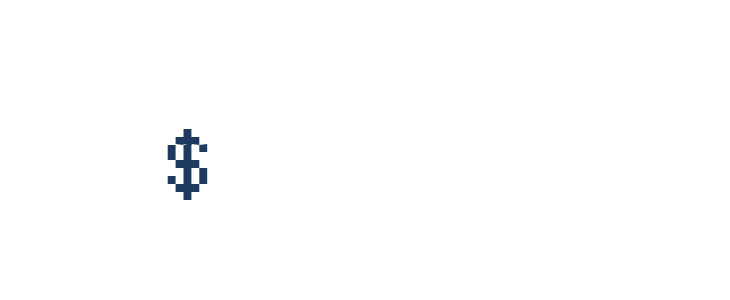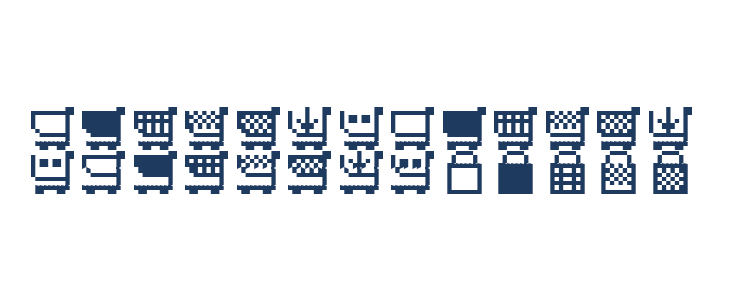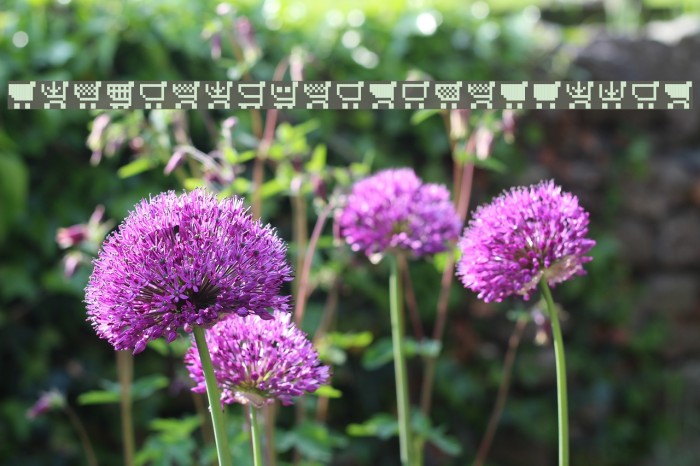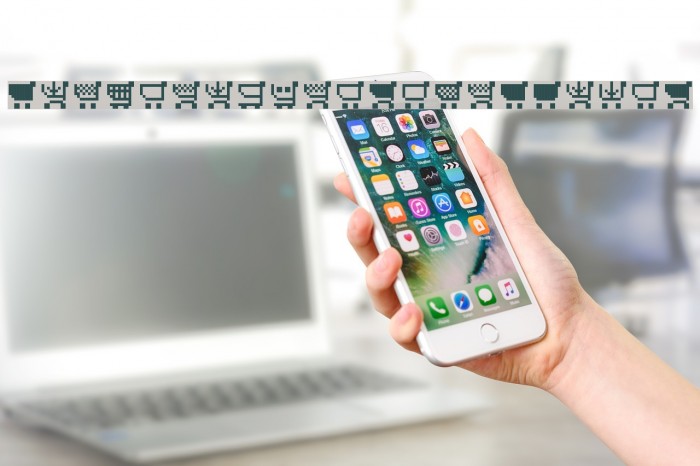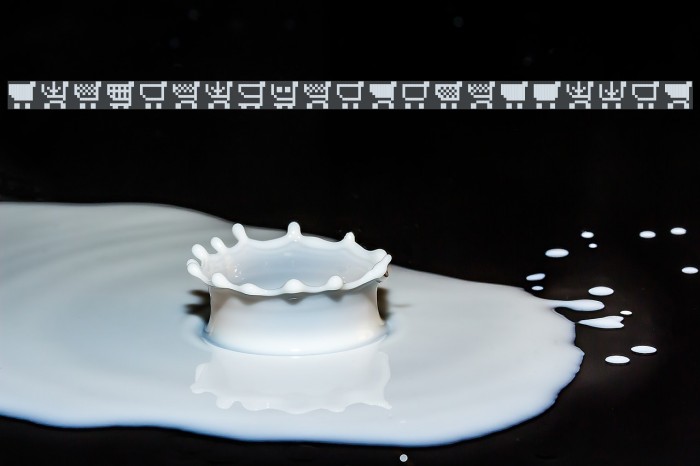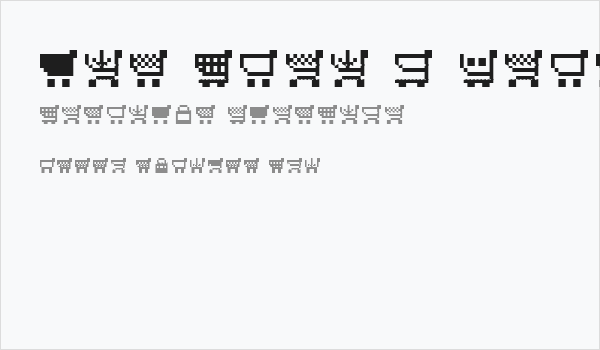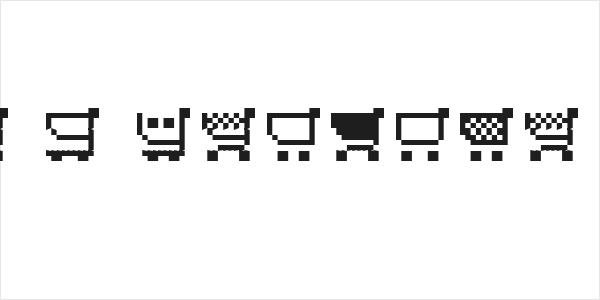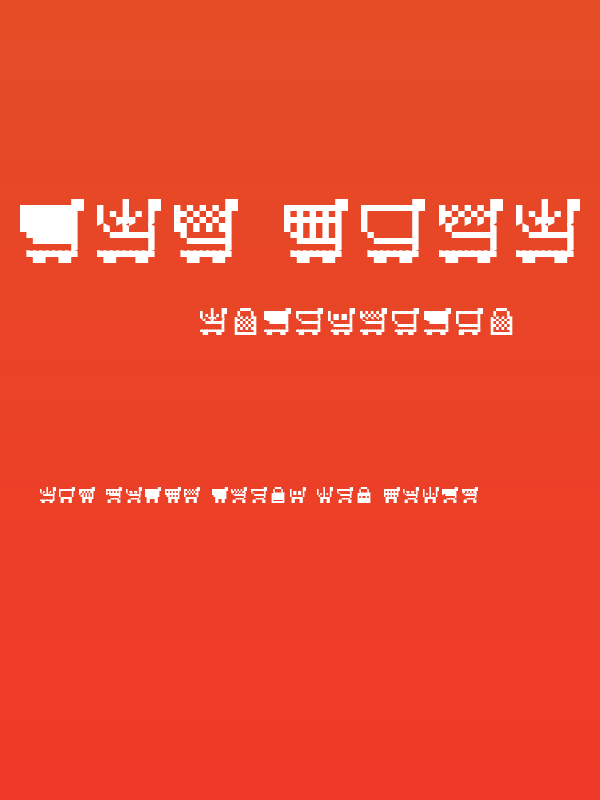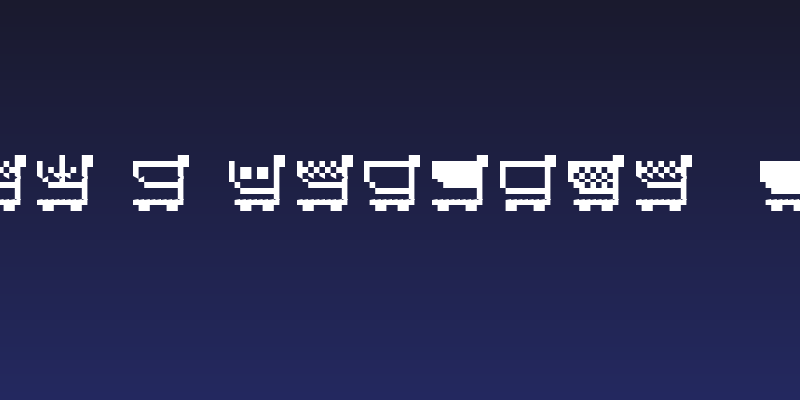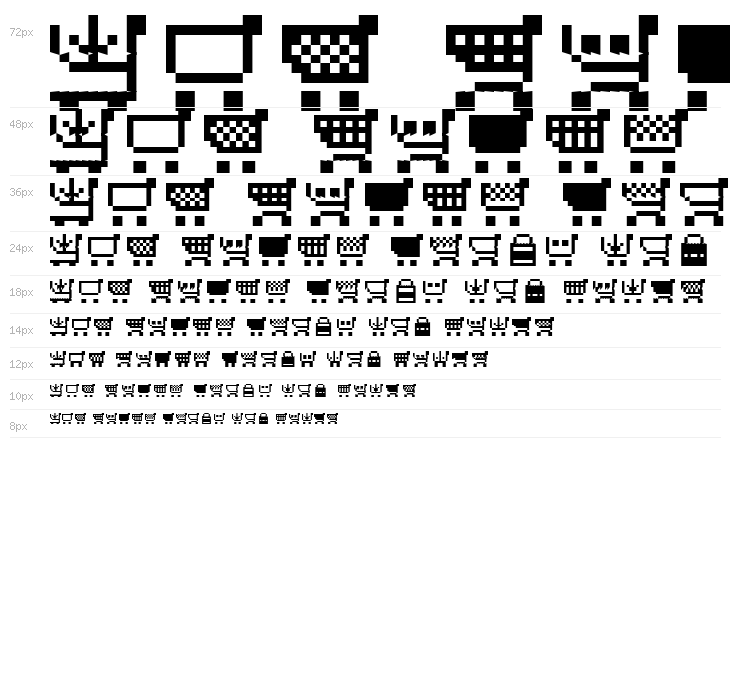
btd Cart-O-Grapher [bitmap] Font
btd Cart-O-Grapher [bitmap] Description
This bitmap font features a series of shopping cart and bag icons, each designed with a pixelated, retro aesthetic. The characters are composed of simple geometric shapes, emphasizing a playful and decorative style. The icons are uniform in size, maintaining a consistent visual rhythm across the set. The design is reminiscent of early digital graphics, offering a nostalgic feel. Each icon is distinct, yet they all share a cohesive theme centered around shopping and commerce. The pixelated nature of the font adds a unique charm, making it suitable for projects that aim to evoke a sense of nostalgia or digital retro style.
Overall StyleRetro, Decorative
Use CaseLogos, Digital art, Themed websites
Proposed ProjectsIdeal for digital art projects, retro-themed websites, or playful branding related to shopping and commerce.